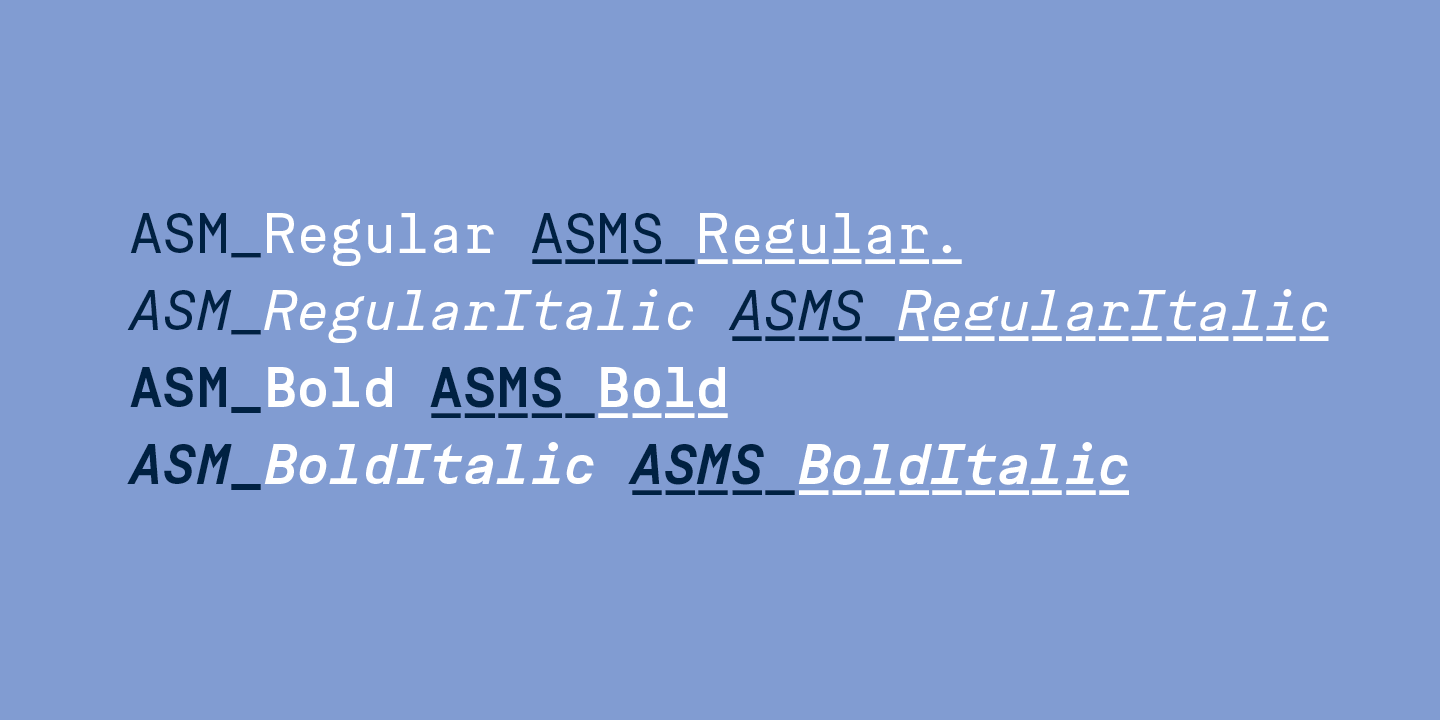
The ASM Font is a robust and impactful typeface, designed to deliver a strong, modern statement. Its clear, often geometric forms and commanding presence make it an excellent choice for bold headlines, technical branding, sports graphics, gaming interfaces, automotive advertising, and digital displays. Whether you’re crafting a powerful logo or designing a dynamic website, this font will give your project an unmistakable sense of strength and cutting-edge precision.
What makes the ASM Font so exciting is its ability to convey authority and contemporary style with unyielding clarity. It often features a solid, unadorned structure that ensures high legibility even in challenging environments. This font is perfect for designers who need to communicate efficiency, innovation, or a powerful, industrial aesthetic. It stands out by offering a no-nonsense yet sophisticated appearance, making any text it graces feel monumental and significant. The clean lines and strong character of ASM Font ensure that your message will be delivered with maximum impact and professionalism.
The ASM Font typically offers a focused yet effective family to support diverse design needs. While specific variations may depend on the font package, you can generally expect to find its primary Regular or Bold weights, which define its core powerful aesthetic. Some versions of the ASM Font Free Download might also include an Italic style to add dynamic flair while maintaining its inherent strength. Given its often display-oriented nature, additional variations might be less common, but any accompanying features would aim to enhance its strong presence, ensuring it remains a dominant force in your typographic toolkit. This concentrated family ensures that the ASM Font can be consistently applied to achieve a strong and cohesive visual message throughout your project.